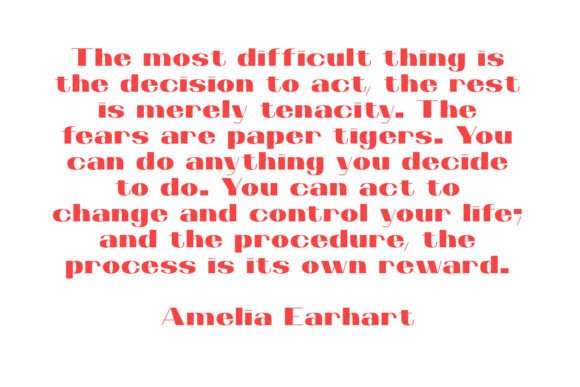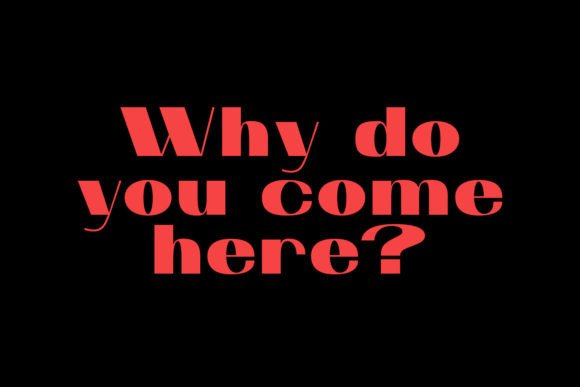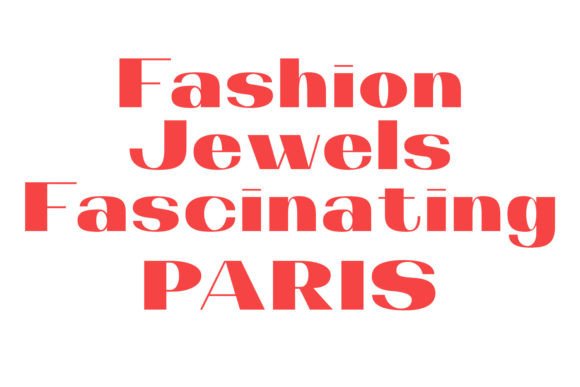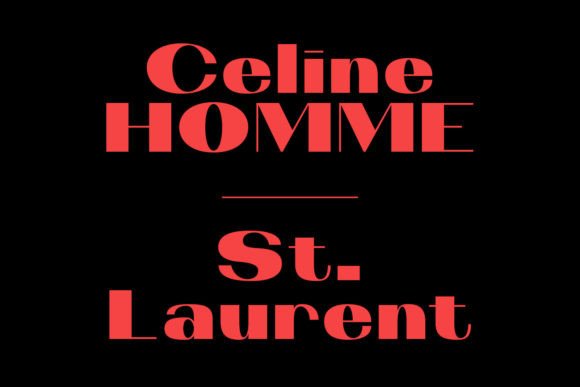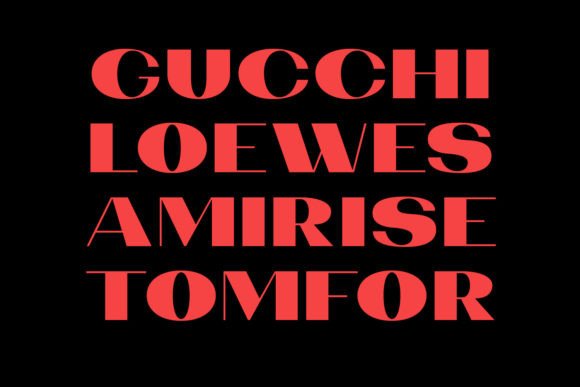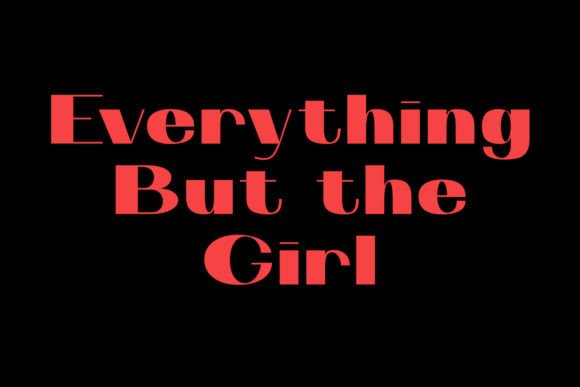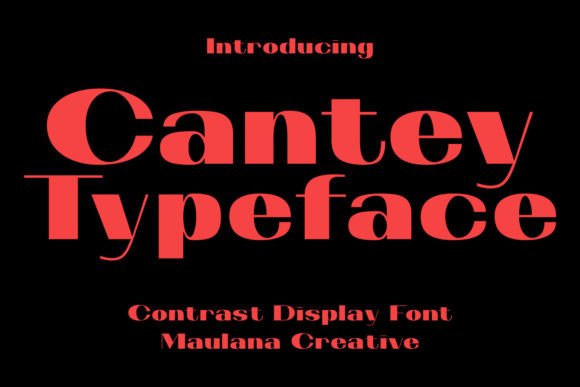
Cantey Font: Elevate Your Designs with a Wide Sans Display Font
Are you a designer or crafter looking for a font that can elevate your creations and make them stand out? Look no further than Cantey Font. This wide sans display font is a versatile and valuable addition to any font library, capable of enhancing any design project with its unique charm and character.
What is Cantey Font?
Cantey Font is a wide sans display font designed to make a statement. Its clean and modern lines, combined with its generous width, make it perfect for headlines, titles, and other display text. Whether you’re working on a branding project, a website design, or a craft project, Cantey Font is sure to grab attention and leave a lasting impression.
Key Features of Cantey Font
- Wide Sans Design: Cantey Font boasts a wide sans design that sets it apart from other fonts. Its generous width makes it perfect for display text, while its clean lines ensure that it remains highly legible.
- Versatility: No matter the topic or theme of your project, Cantey Font is sure to be a great fit. Its neutral design ensures that it won’t overpower your content, allowing you to use it for a wide range of projects.
- Elegance and Sophistication: Cantey Font exudes elegance and sophistication, making it perfect for high-end branding projects, luxury goods, and other applications where a premium feel is required.
Benefits of Using Cantey Font
So why should you choose Cantey Font for your next project? Here are just a few benefits of using this versatile font:
- Instant Recognition: Cantey Font’s unique design ensures that it grabs attention and leaves a lasting impression. Use it to create memorable headlines, titles, and other display text that will help your project stand out.
- Improved Readability: Despite its wide design, Cantey Font remains highly legible, even at smaller sizes. This makes it perfect for use in a variety of applications, from body text to display text.
- Flexibility: Cantey Font is a highly versatile font that can be used for a wide range of projects. Whether you’re working on a branding project, a website design, or a craft project, Cantey Font is sure to be a great fit.
How to Use Cantey Font
So how can you start using Cantey Font in your projects? Here are a few ideas to get you started:
- Branding Projects: Use Cantey Font to create bold and eye-catching logos, business cards, and other branding materials.
- Website Design: Add Cantey Font to your website design to create memorable headlines, titles, and other display text.
- Craft Projects: Use Cantey Font to add a professional touch to your craft projects, from papercraft to sewing and embroidery.
In conclusion, Cantey Font is a wide sans display font that is sure to elevate any design project. Its unique charm and character, combined with its versatility and elegance, make it a valuable addition to any font library. Whether you’re a designer, crafter, or DIY enthusiast, Cantey Font is a great choice for anyone looking to add a professional touch to their projects.
- Experiment with Different Sizes: Cantey Font looks great at a variety of sizes, from small and subtle to large and bold. Experiment with different sizes to find the one that works best for your project.
- Pair with Other Fonts: Cantey Font pairs well with a variety of other fonts, from serif to script fonts. Experiment with different pairings to find the one that works best for your project.
- Use in Combination with Images: Cantey Font looks great when used in combination with images and other graphics. Experiment with different layouts to find the one that works best for your project.